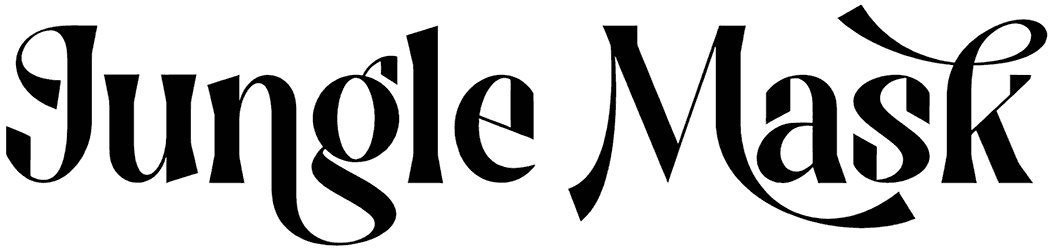
Jungle Mask Font
Customers who reject your first design proposal may never contact you again. A script font such as Jungle Mask is sure to make an impression on your audience.